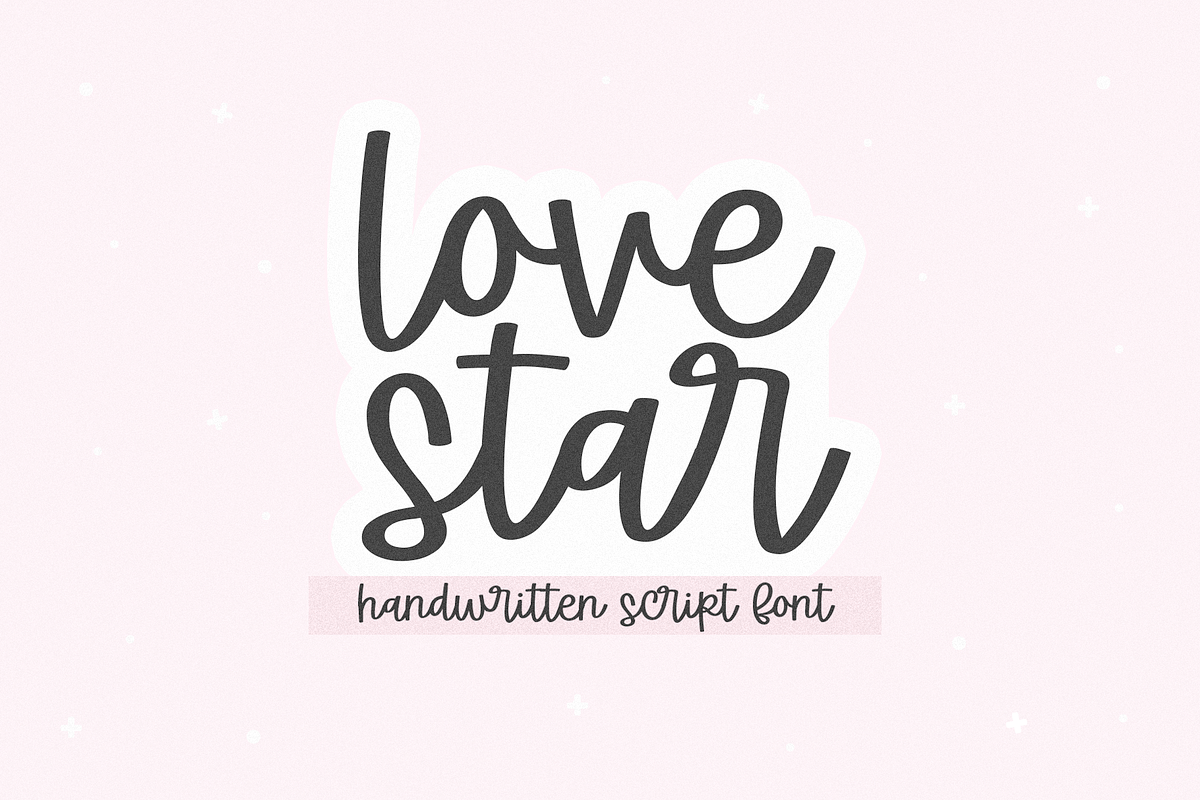
Lovestar | Cute Script Font Free Download
Lovestar | Cute Script Font Free Download is an adorable and charming handwritten typeface that brings warmth, sweetness, and personality to any design. With its bouncy baseline, heartful strokes, and playful curves, this font is perfect for greeting cards, kids’ projects, branding, quotes, stickers, and social media posts that need a lighthearted, lovable touch.
Lovestar | Cute Script Font Free Download stands out with its cheerful style and romantic feel, making it especially great for Valentine’s designs, baby-themed projects, or boutique logos. It combines readability with an expressive flair, making every message feel friendly and fun.